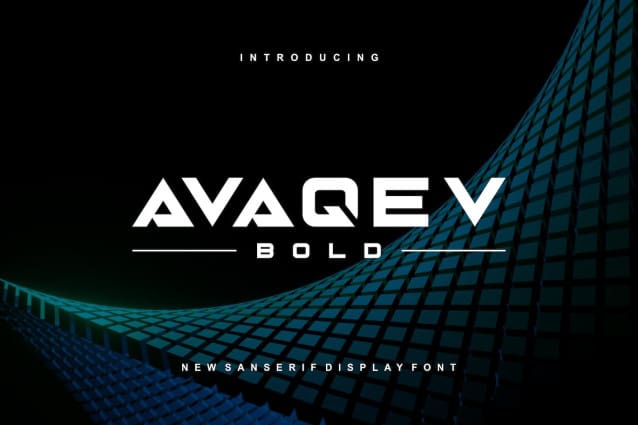
Avaqev Font – Modern Font is a simple and authentic display font. Perfectly fit for branding, logo, wedding things, greeting cards, fashion, lookbook, marketing promotion, anytime you want to look fancy elegant but still casual.
Avaqev Font
| Classification: | Display Fonts, Sans Serif Fonts, Techno / Futuristic Fonts |